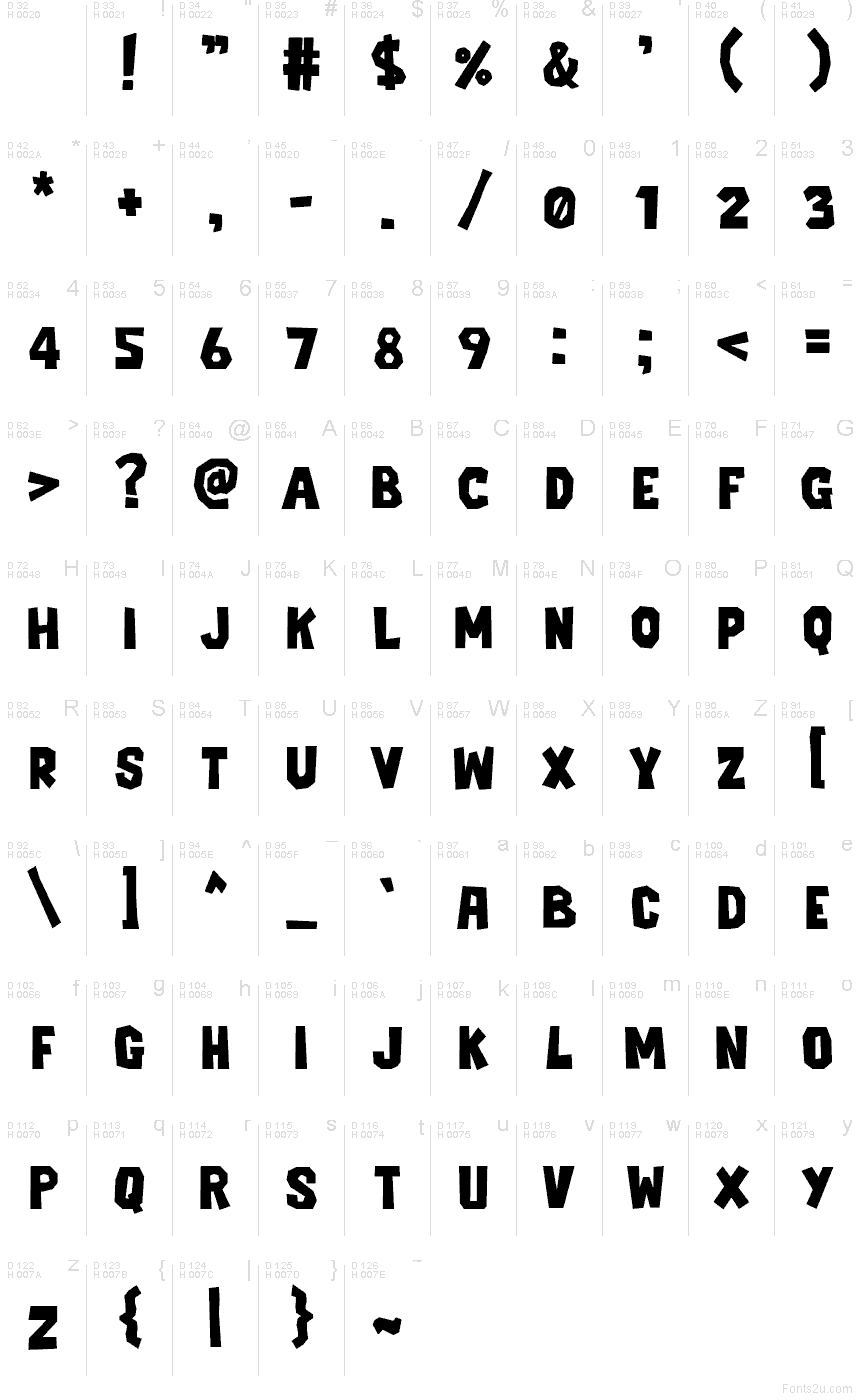
SEEKUW
Seekuw font by Tokokoo Studio is a free cartoon display typeface with loud, chunky letters that feel like they’ve been hacked out of black construction paper. The forms are tall, slightly wobbly, and tightly packed, giving every word a shouty, high-energy presence. Those angular cuts and irregular edges add a rough, handmade charm that keeps it playful rather than polished.
Using Seekuw, titles instantly snap to attention on kids’ book covers, game logos, snack packaging, event posters, YouTube thumbnails, and bold social graphics. This free font thrives at large sizes where its blocky shapes and uneven rhythm can really punch through busy layouts. Pair it with a simple rounded sans for smaller text and let Seekuw handle the big, noisy headlines.